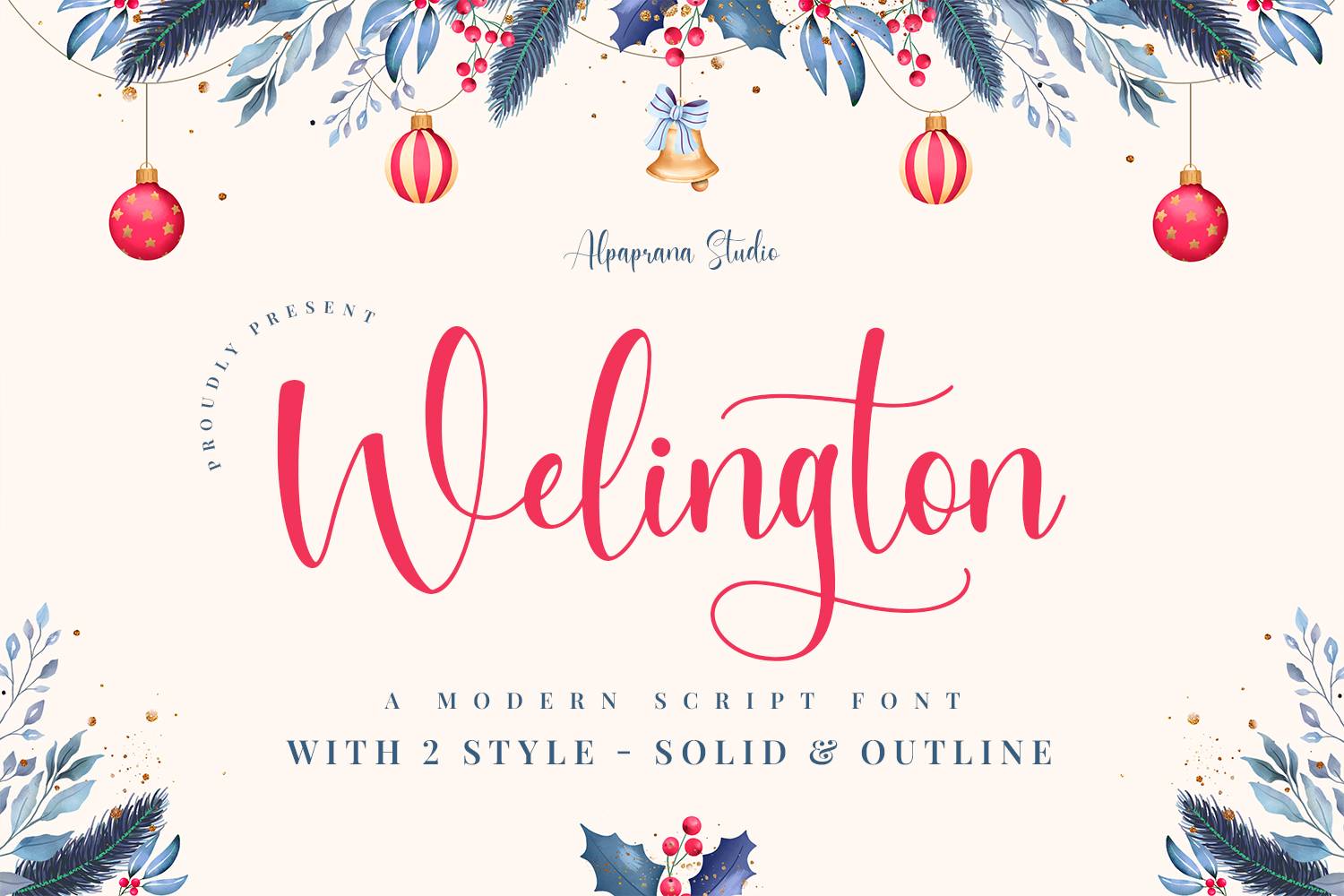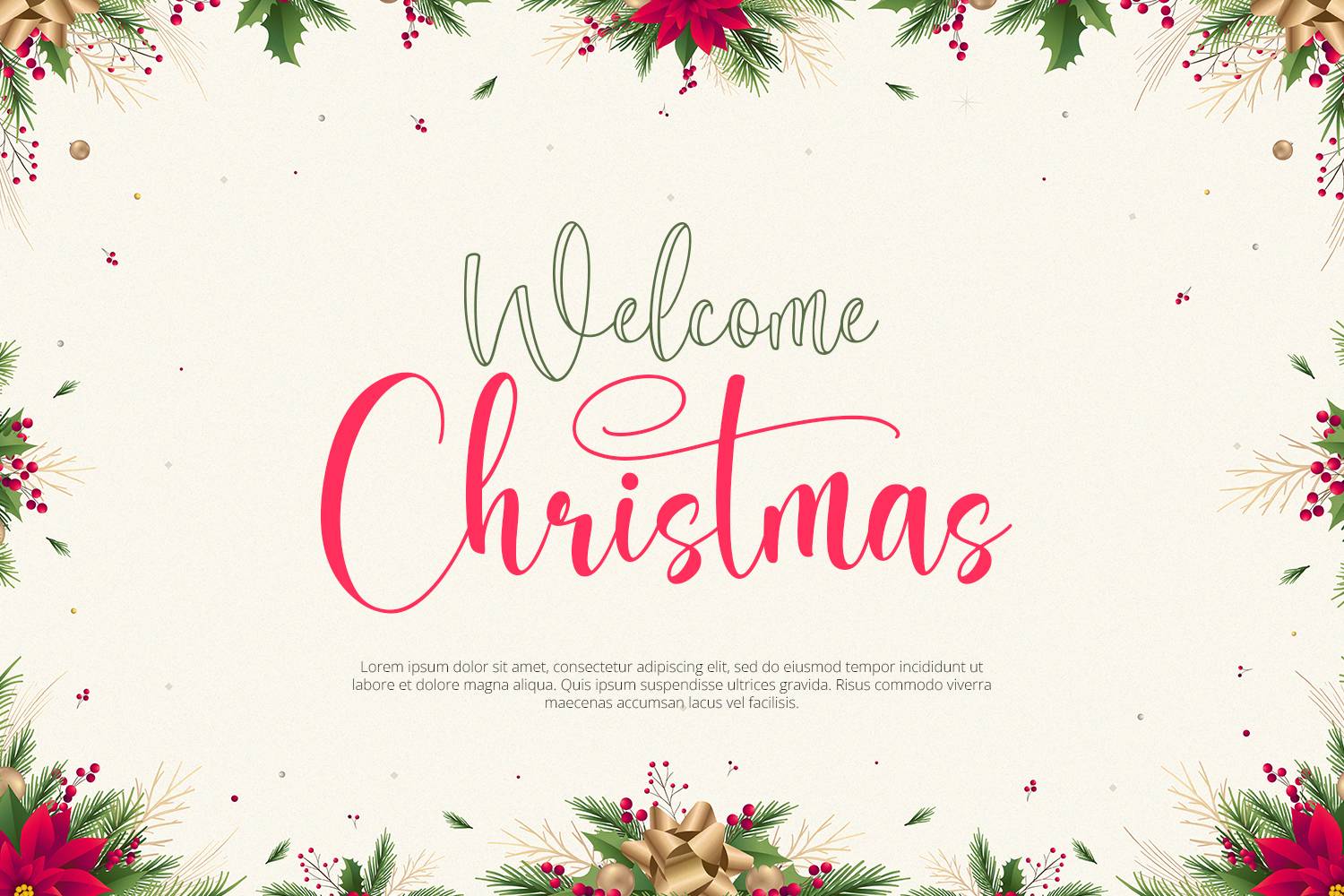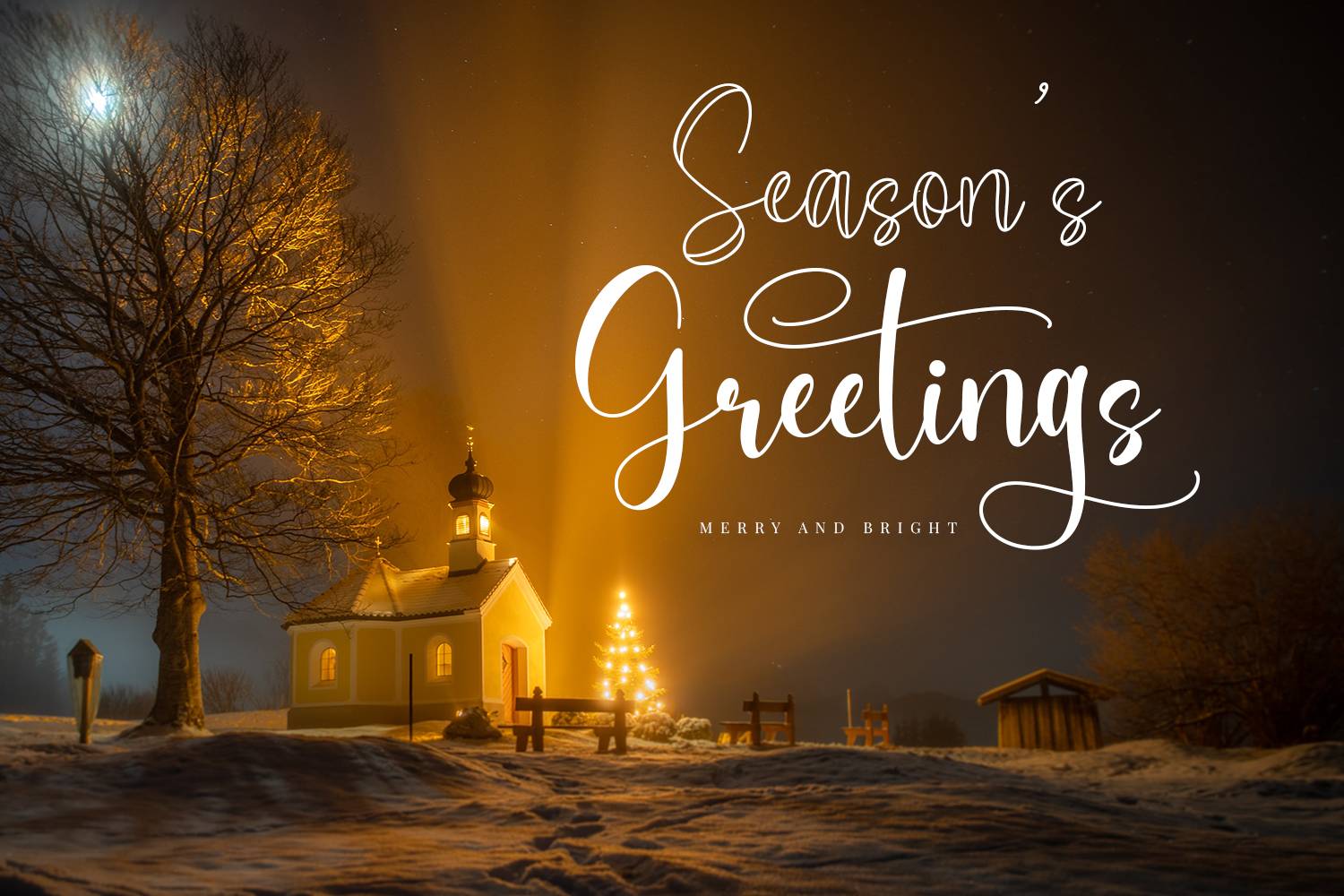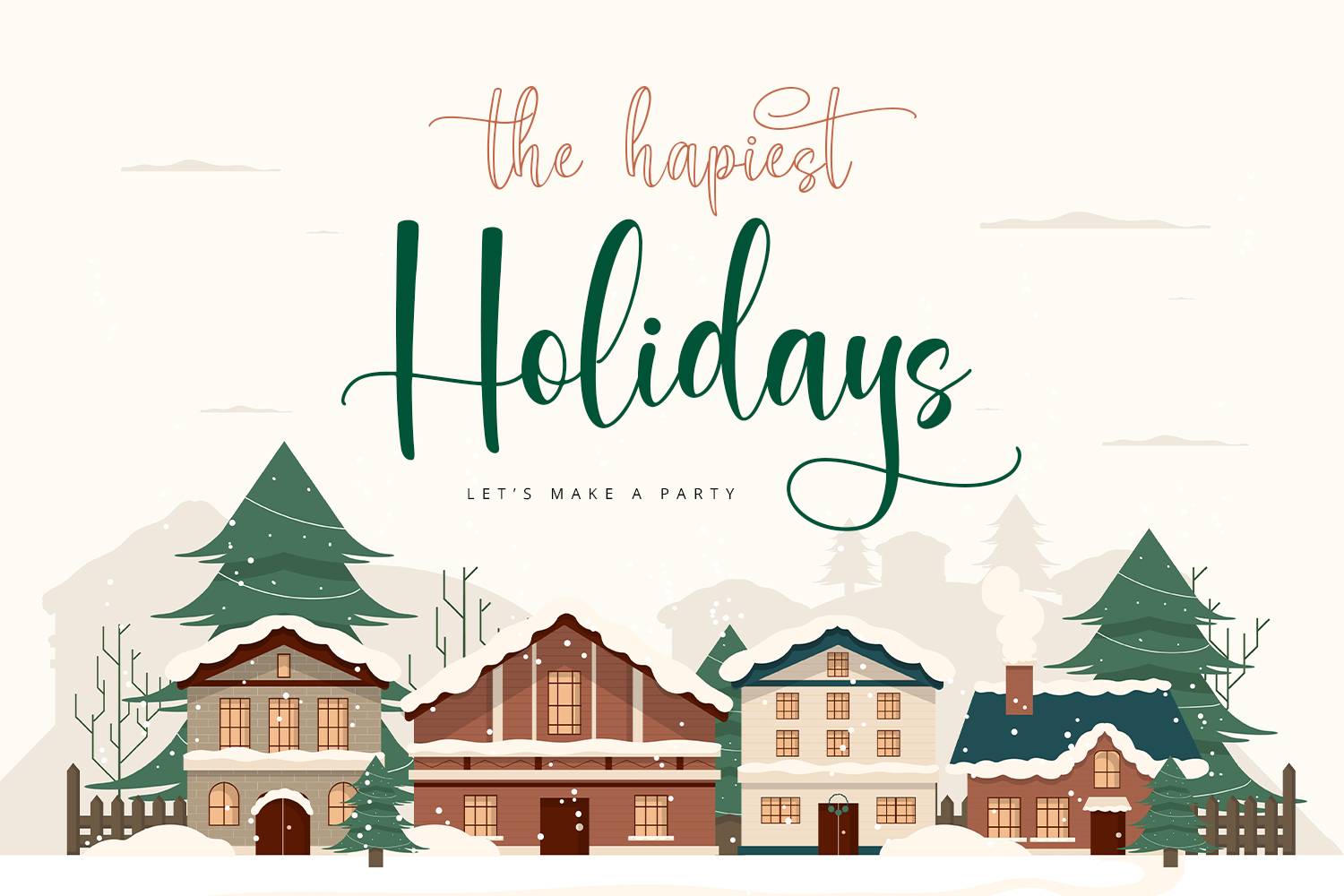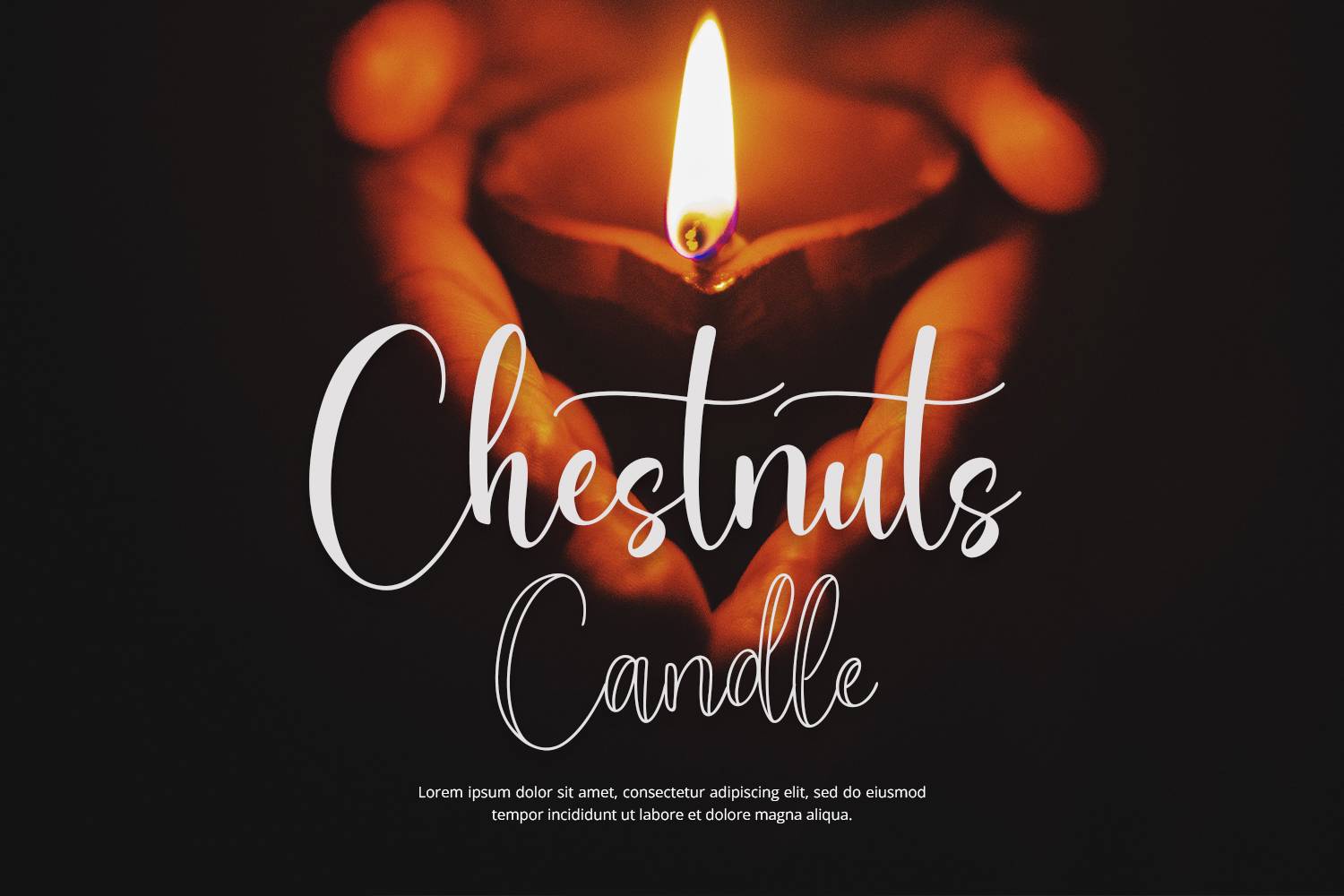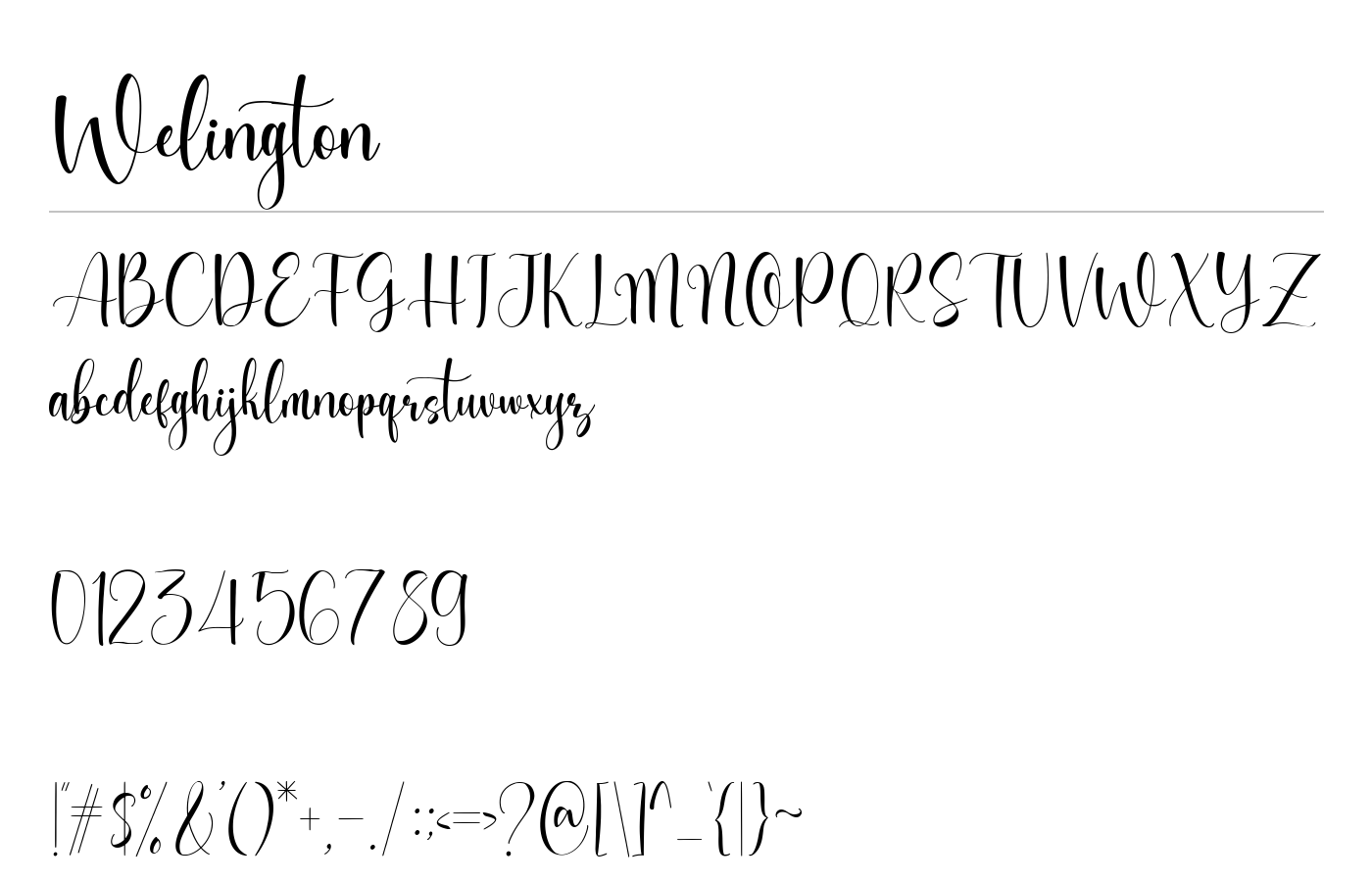
Welington Font is an elegant, handwritten script typeface featuring tall, slender letterforms with smooth, flowing strokes that add a sophisticated yet approachable charm. Its delicate contrasts and graceful curves make it perfect for stylish branding, invitations, and feminine editorial designs where a refined, personal touch is desired. This font works especially well in headlines and logo designs that want to convey elegance and warmth without feeling overly formal.
Welington Font
About Welington Font